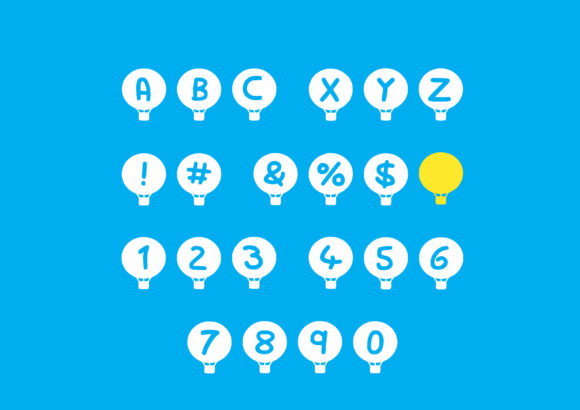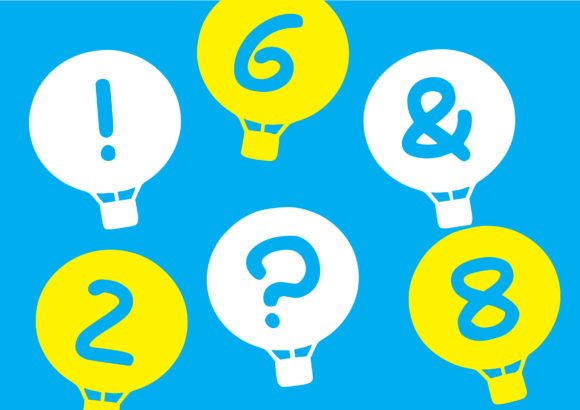
Introduction to Play Hot Air Balloon Font Font
Fonts play a crucial role in design, and the Play Hot Air Balloon Font font is a typeface that brings both character and versatility to any project. Whether you’re working on a branding project, a website, or a print design, the Play Hot Air Balloon Font font offers a unique style that can elevate your work.
Play Hot Air Balloon is a lovely decorative font, featuring a set of balloons with a playful, child-like vibe.
It embodies trendiness and authenticity and is the perfect choice for any children activity or school project .
Key Features of Play Hot Air Balloon Font Font
Why Choose Play Hot Air Balloon Font Font?
The Play Hot Air Balloon Font font is more than just a typeface – it’s a design tool that helps you communicate your message with style and clarity. Its unique character set and versatile design make it suitable for a wide range of applications, from elegant invitations to bold headlines.
With its carefully crafted letterforms and balanced proportions, the Play Hot Air Balloon Font font ensures readability and visual appeal across all mediums.
What makes Play Hot Air Balloon Font font special?
The Play Hot Air Balloon Font font stands out with its unique design, exceptional readability, and versatility across various design applications.